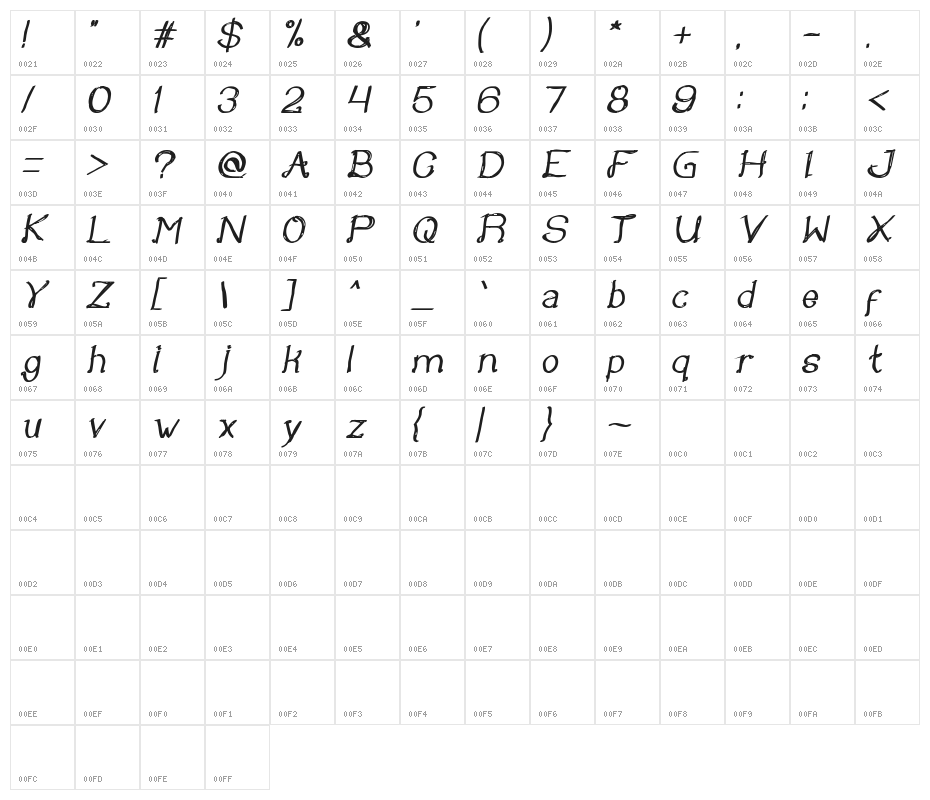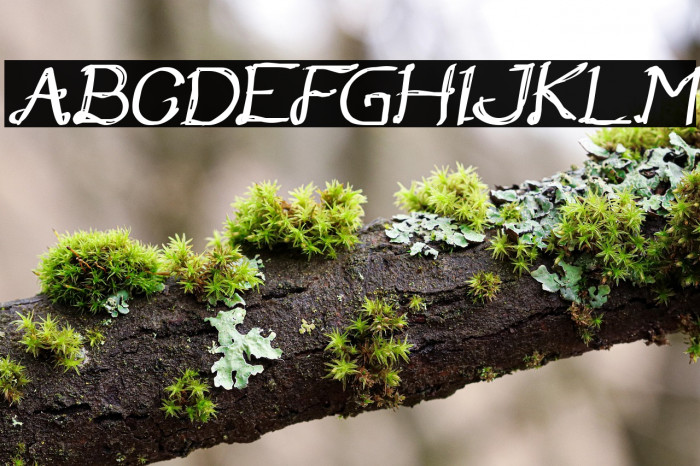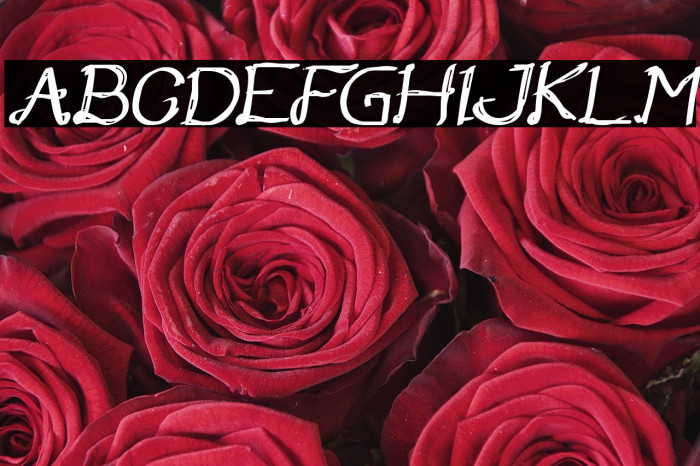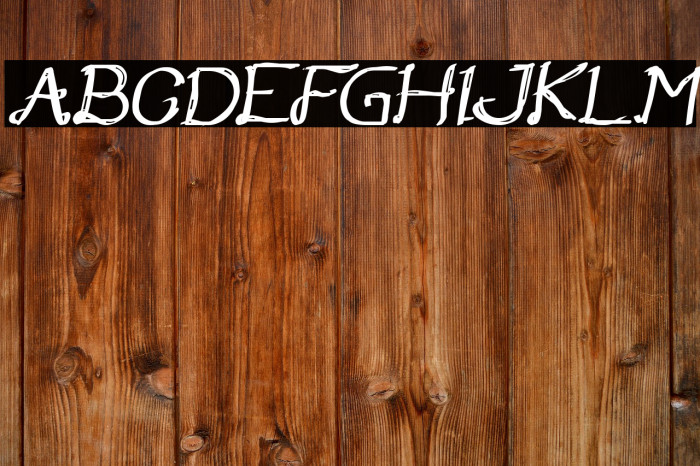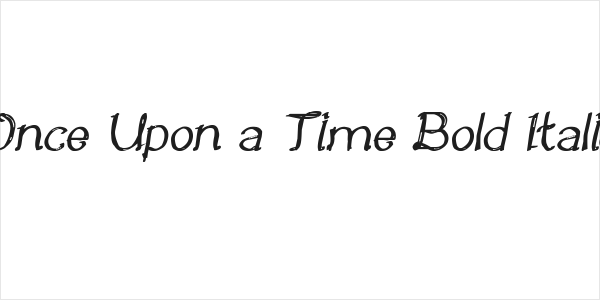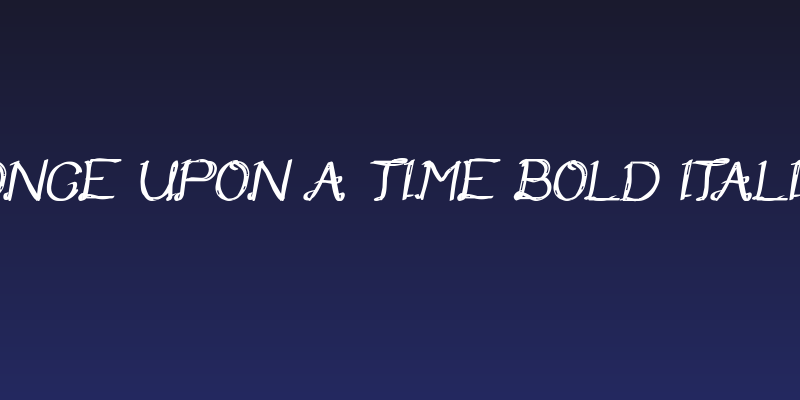
Once Upon a Time Bold Italic Font
Once Upon a Time Bold Italic Description
This font features a whimsical and playful script style, characterized by its bold and italicized letters. The strokes are thick and expressive, with a hand-drawn quality that adds a sense of charm and creativity. The uppercase letters are slightly larger, providing a dynamic contrast with the lowercase letters. The numbers and special characters maintain the same playful aesthetic, making the font versatile for various uses. The overall appearance is lively and engaging, perfect for projects that require a touch of personality and flair.
| Proposed Projects | Ideal for children's books, greeting cards, playful branding, and creative posters. |